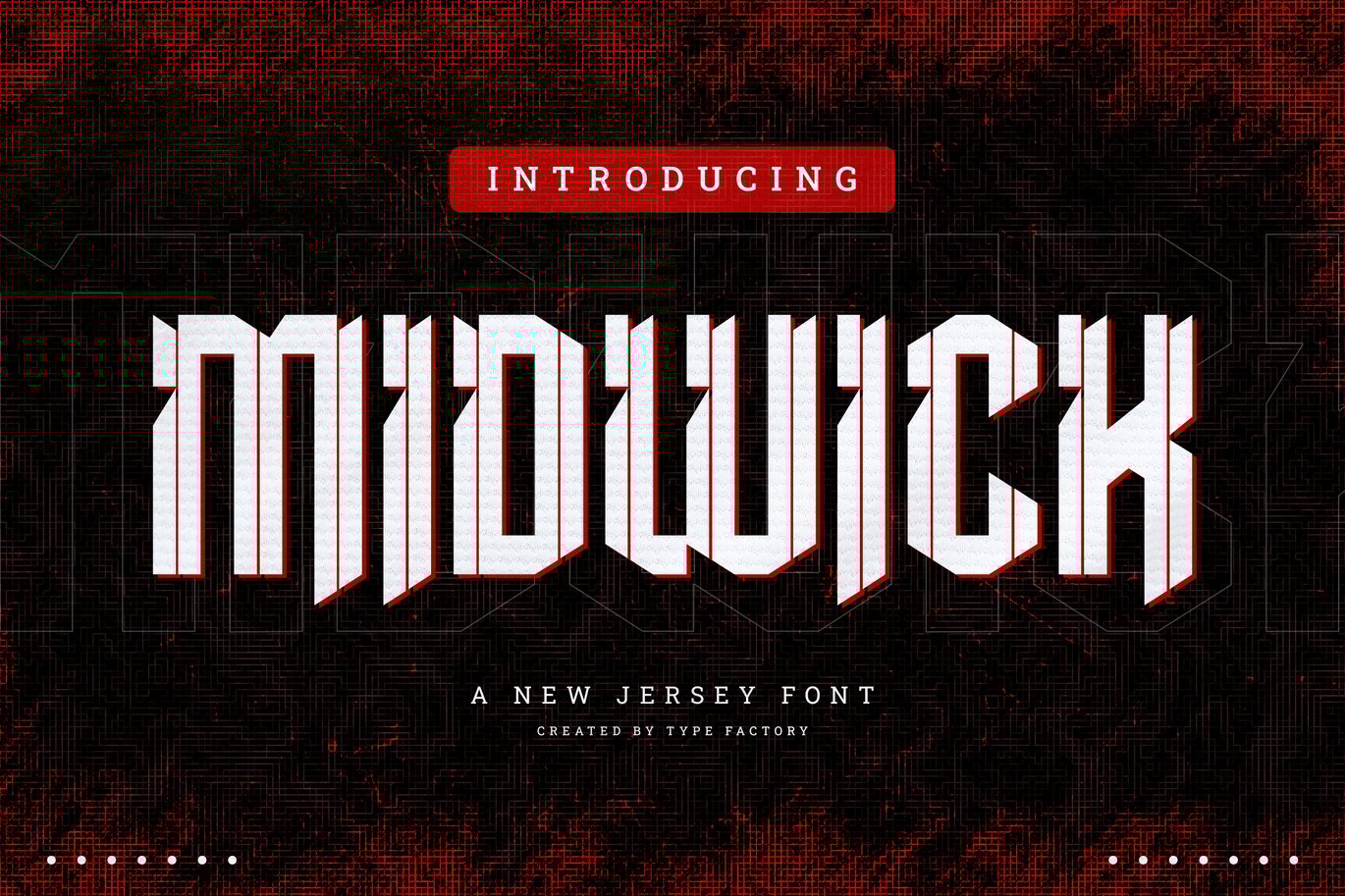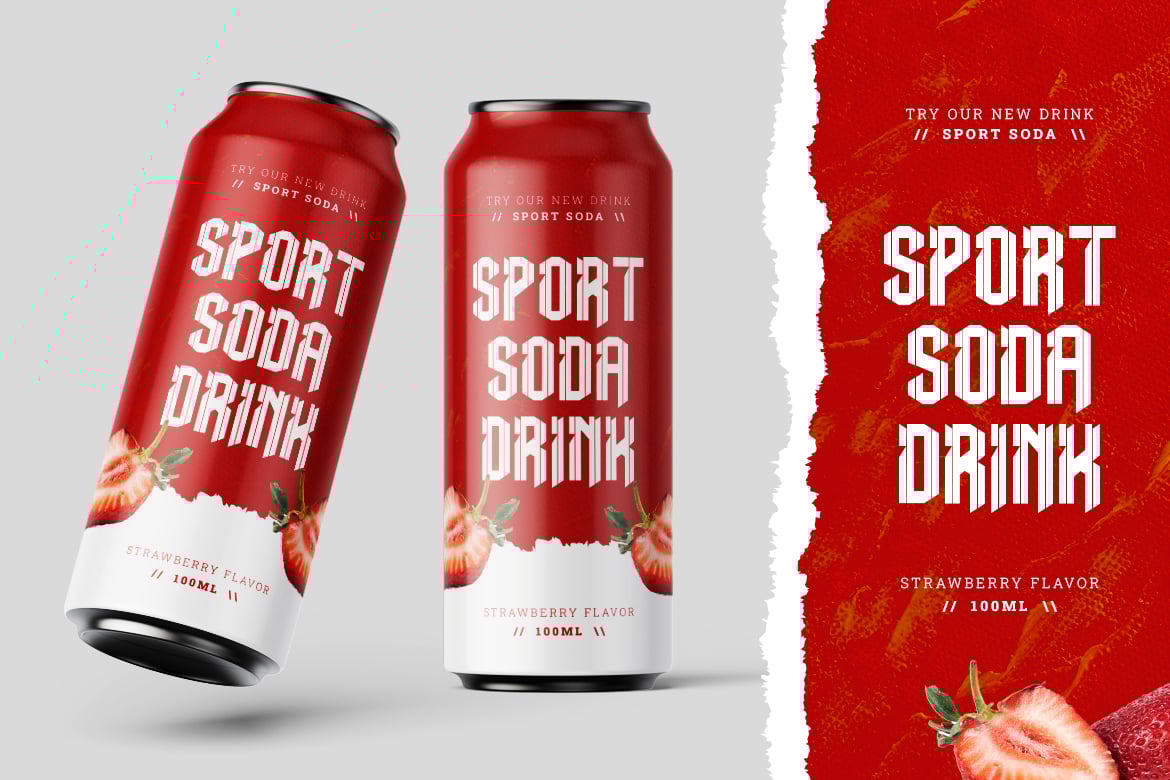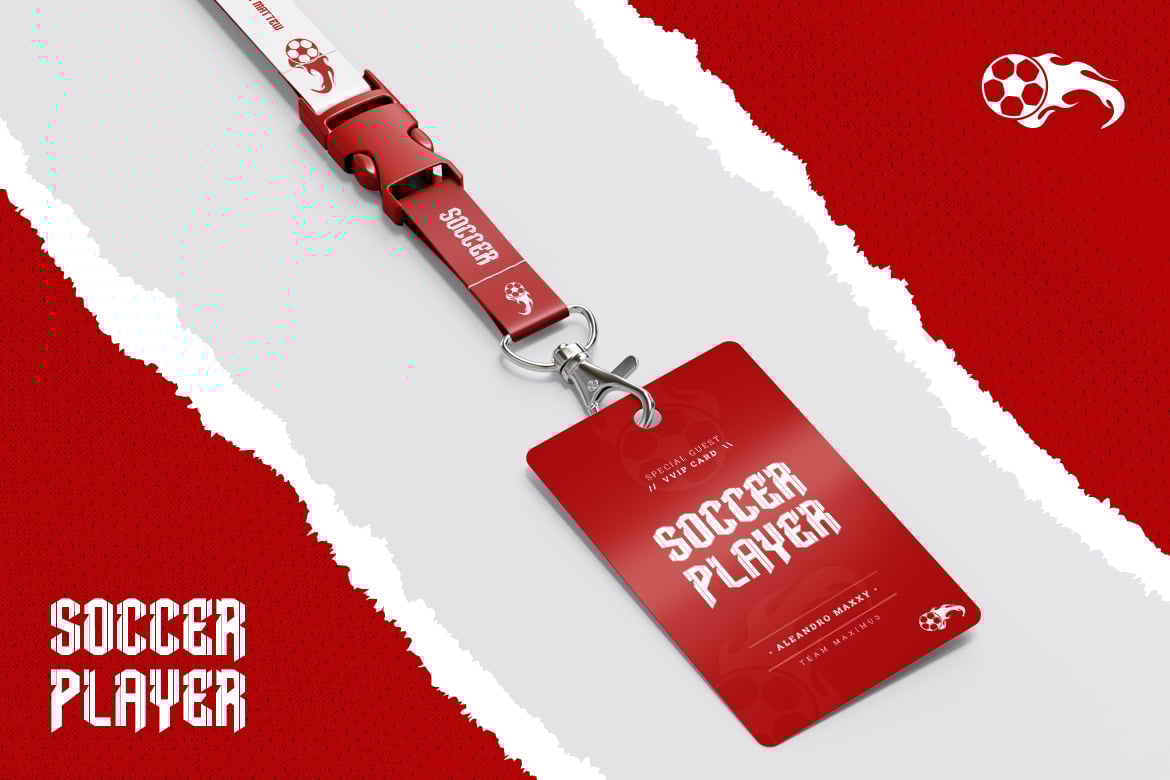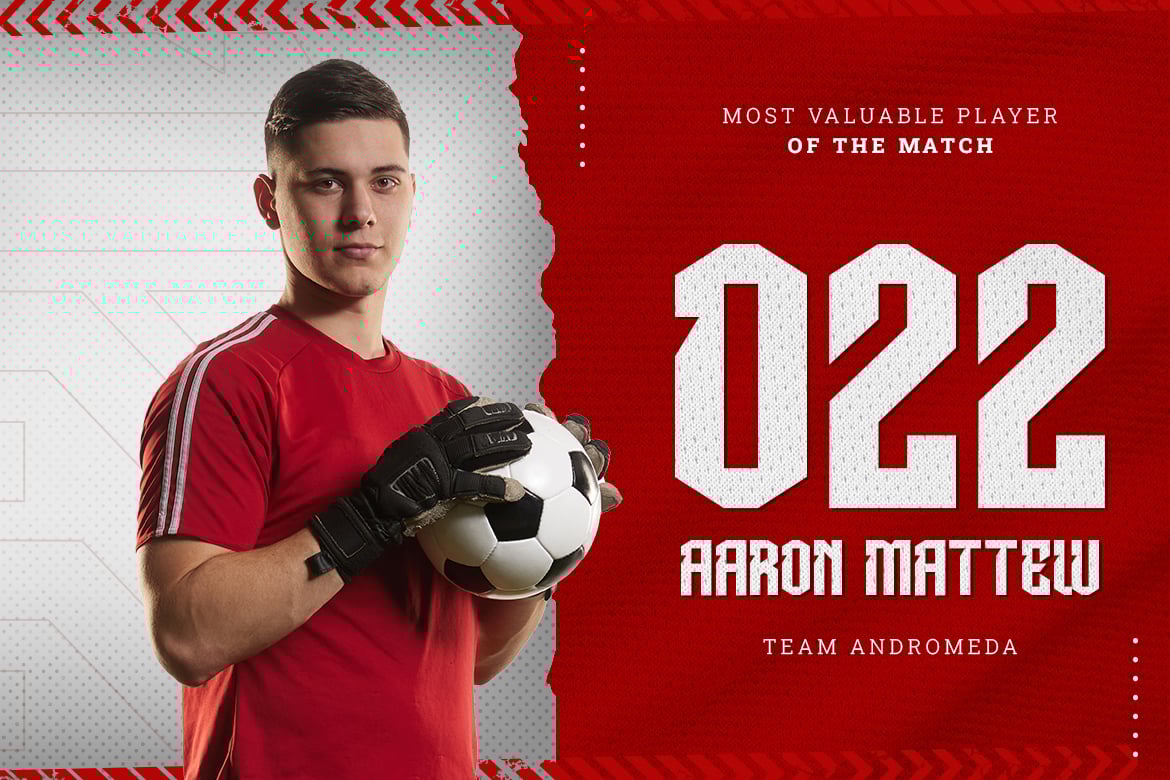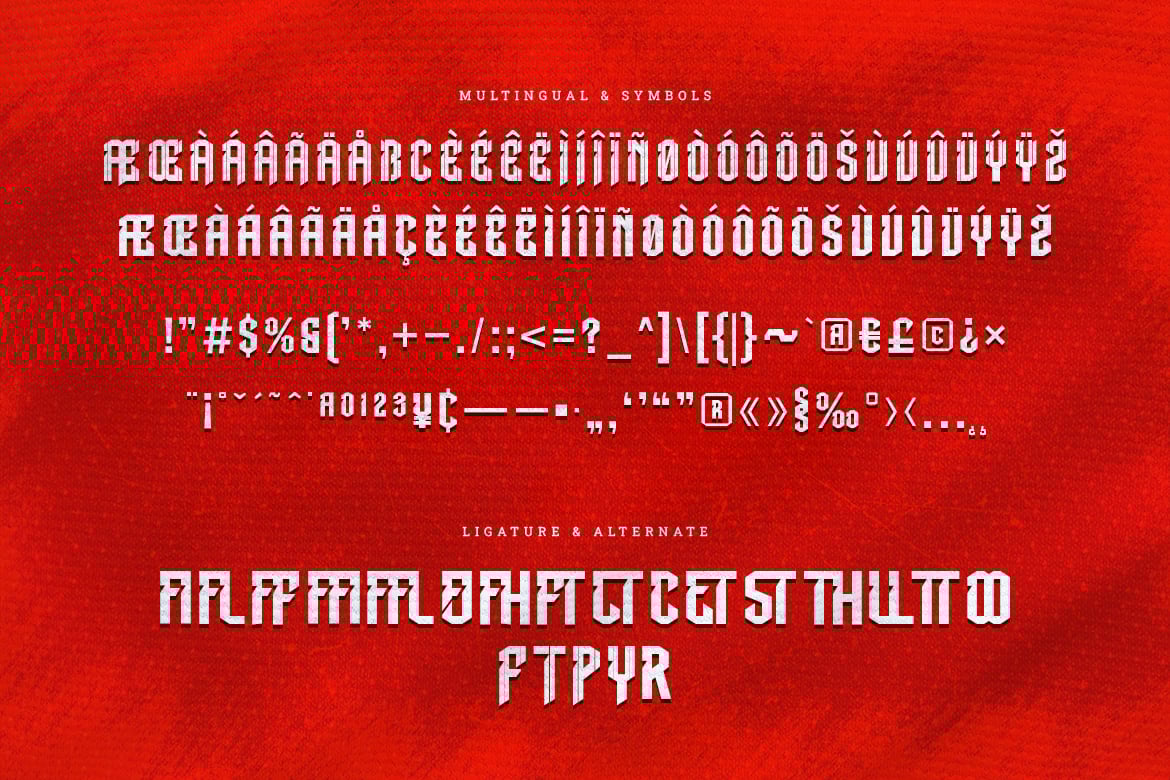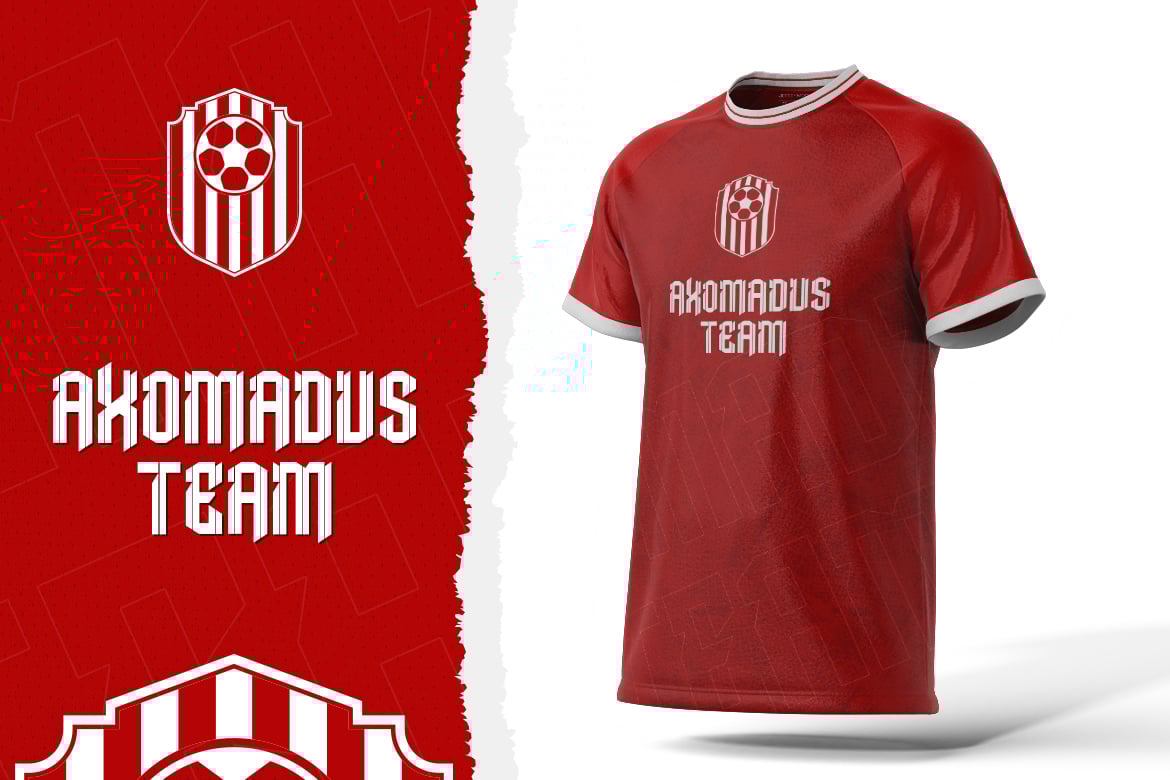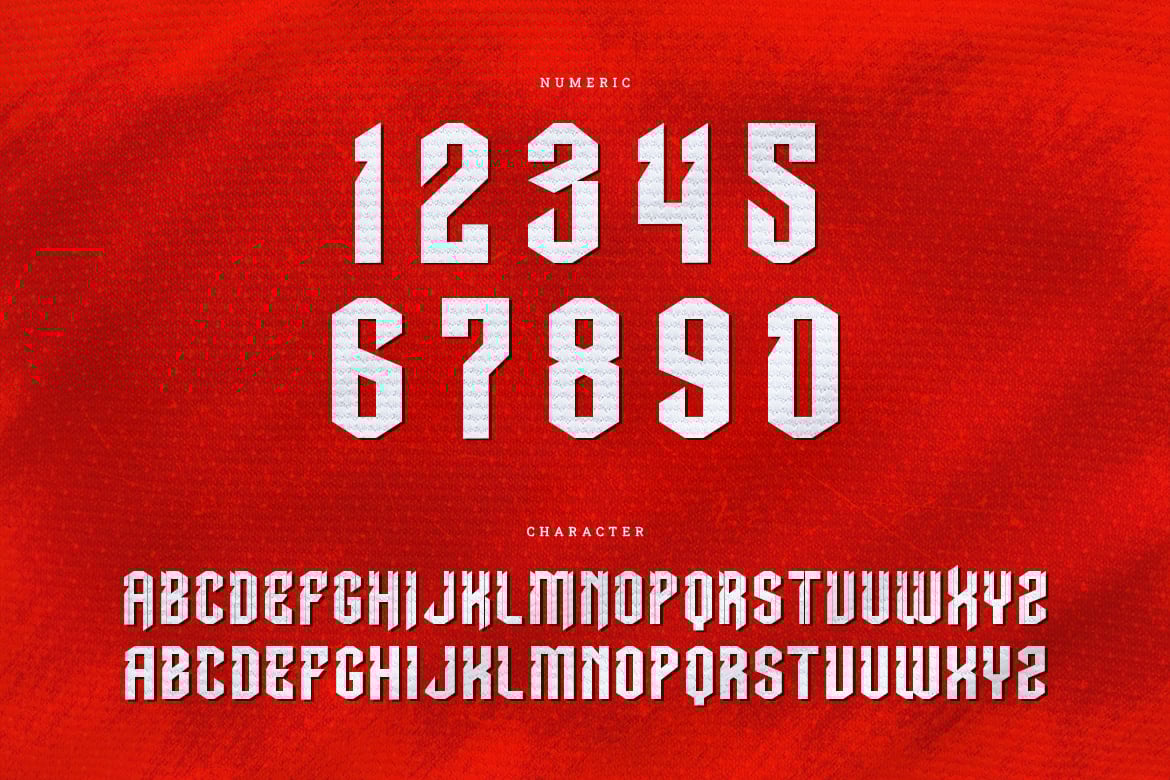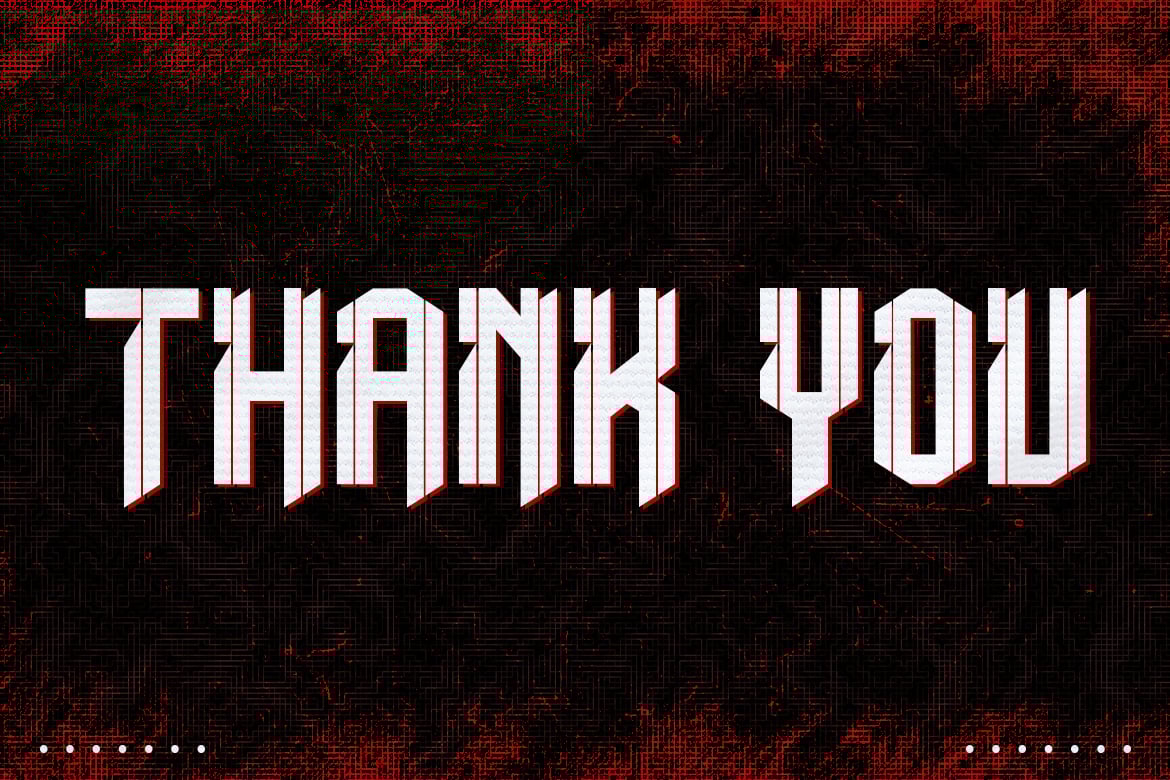
Midwick – Jersey Font
Midwick is a bold and energetic typeface inspired by the urban and dynamic spirit of New Jersey. With its strong lines and playful character, Midwick is perfect for creating impactful designs that need a gritty, yet modern edge. Ideal for sports logos, streetwear branding, posters, and signage, this font captures the essence of New Jersey’s bold personality and vibrant culture. Whether for print or digital, Midwick adds a distinctive, energetic vibe to any project, making it stand out with authenticity and attitude.